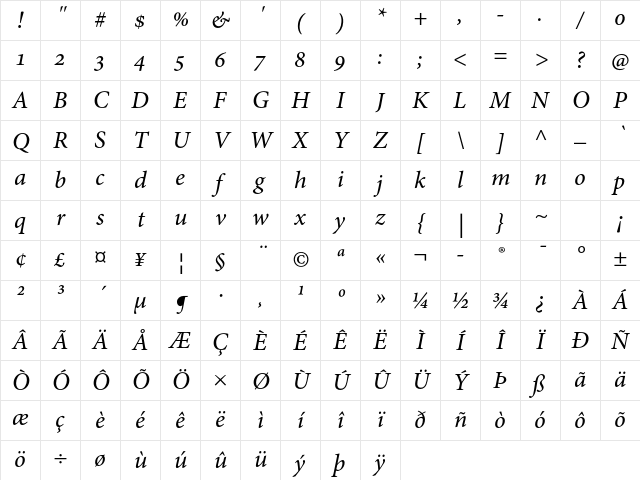
Adobe Hebrew Italic
Foundry: Tiro Typeworks for Adobe Systems Incorporated.
Designer: John Hudson (Hebrew) and Robert Slimbach (Latin)
Design Context for Adobe Hebrew
Adobe Hebrew is a composed and adaptable typeface that performs quietly and consistently across a wide range of design contexts. The slanted form adds forward momentum and visual energy.
Pro Tip: Use Adobe Hebrew for emphasis, pull quotes, and subheadings where its slanted energy can add rhythm to the layout.
Who designed the Adobe Hebrew Italic font?